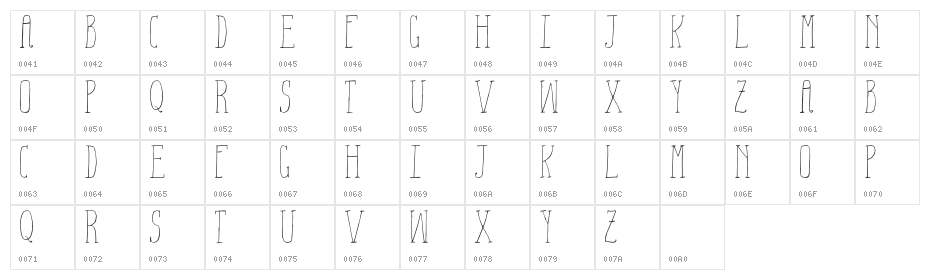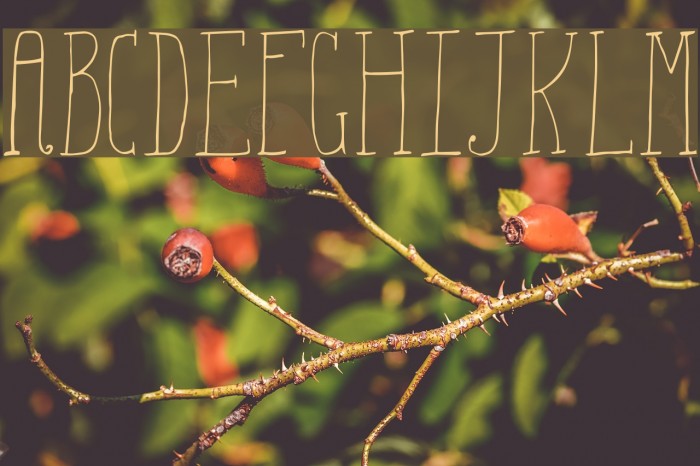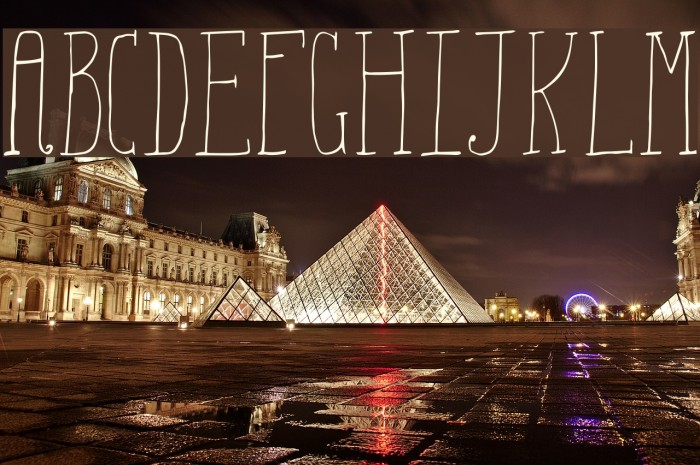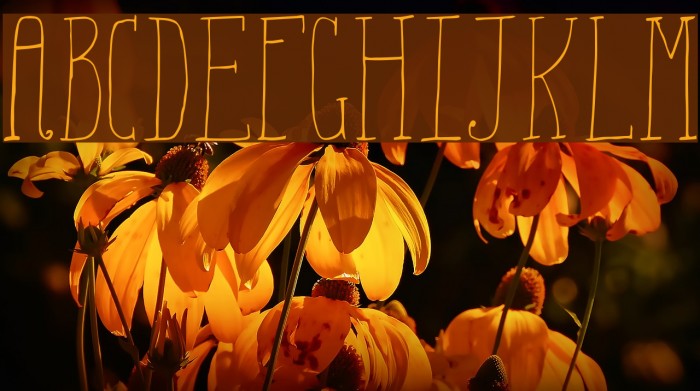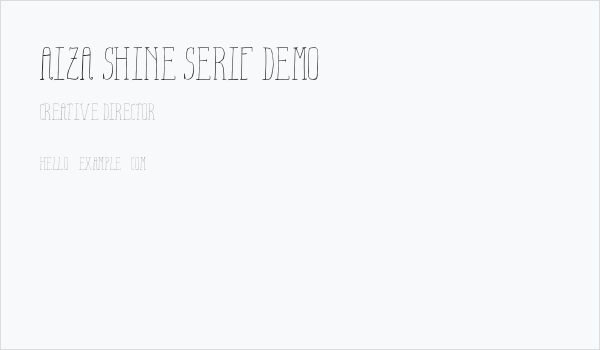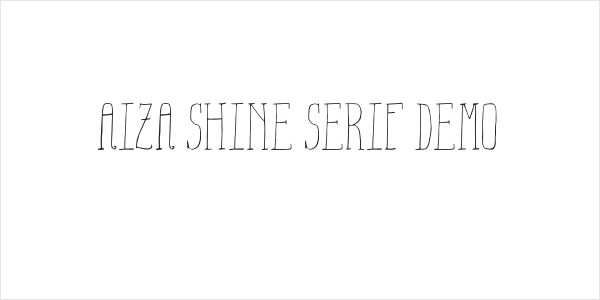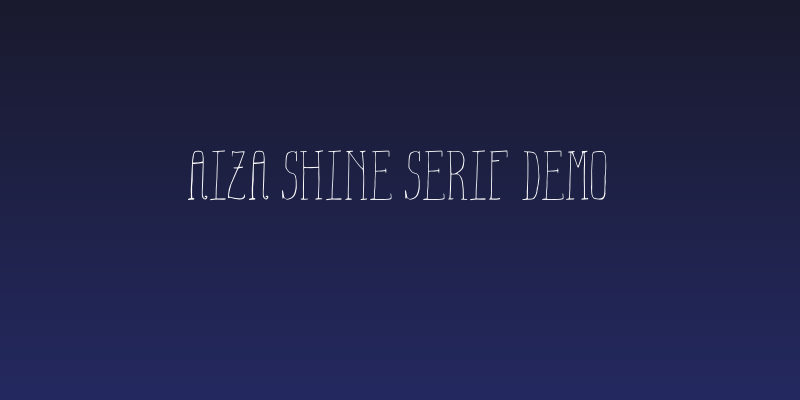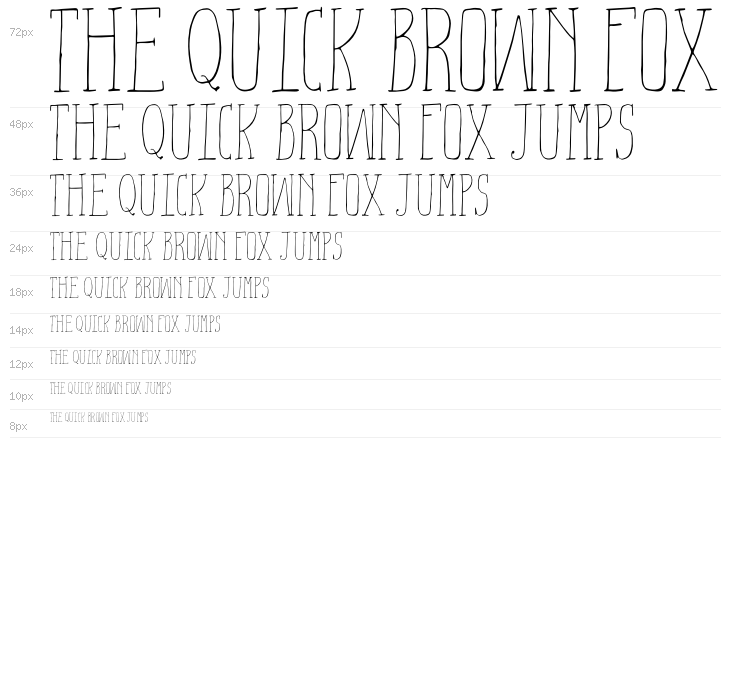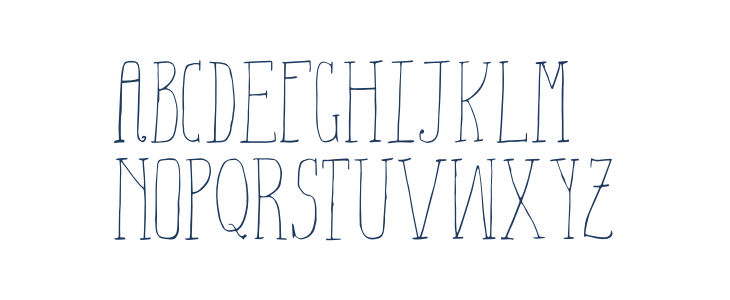
Aiza Shine Serif Demo Font
Aiza Shine Serif Demo Description
This font features a whimsical and playful design with tall, narrow characters that have a hand-drawn quality. The strokes are thin and slightly uneven, adding to the casual and artistic feel. Each letter has a unique flair, with some characters exhibiting slight curls or loops at the ends. The overall appearance is light and airy, making it suitable for creative and informal projects. The font maintains a consistent height across uppercase and lowercase letters, contributing to its cohesive look. Its distinct style is ideal for adding a touch of personality and charm to any design.